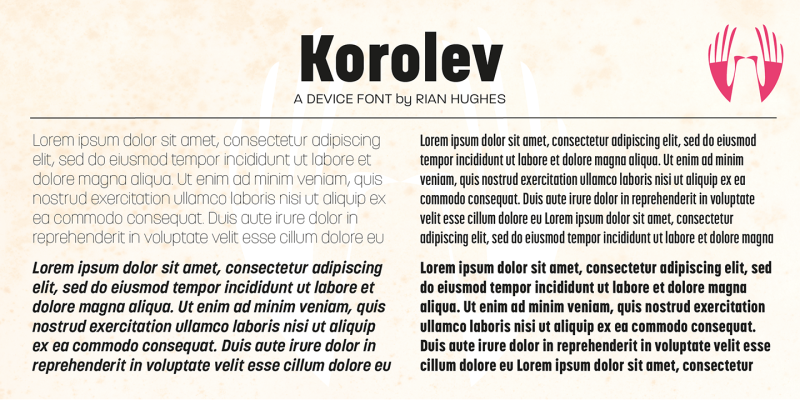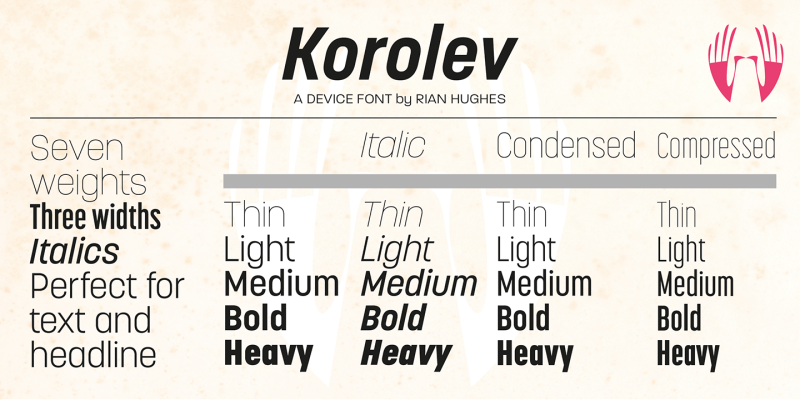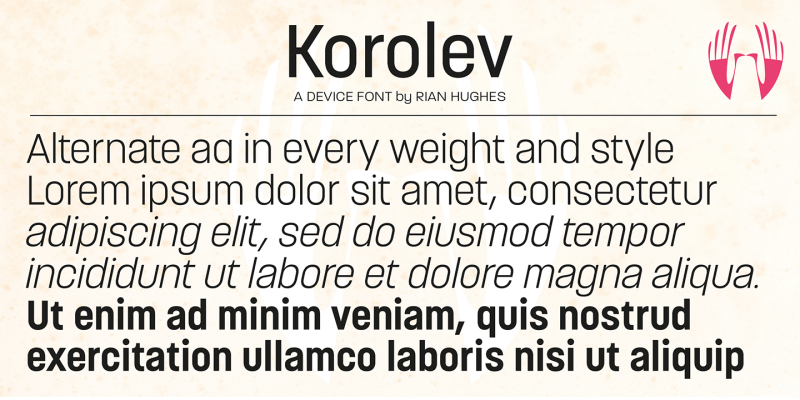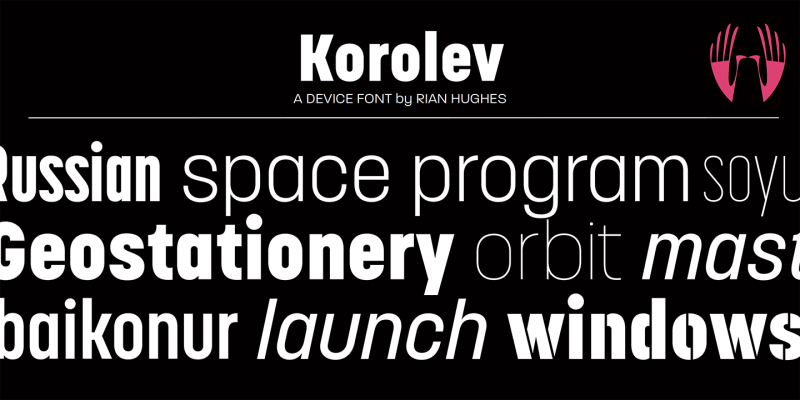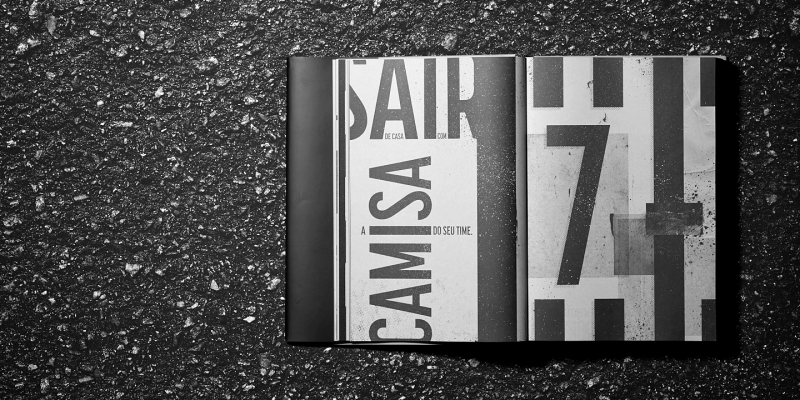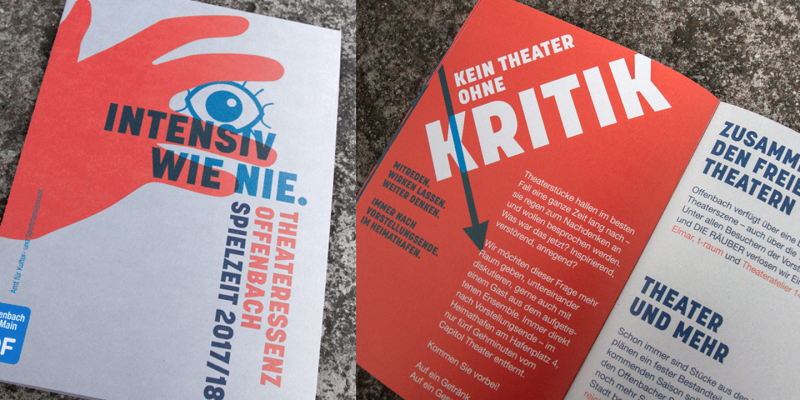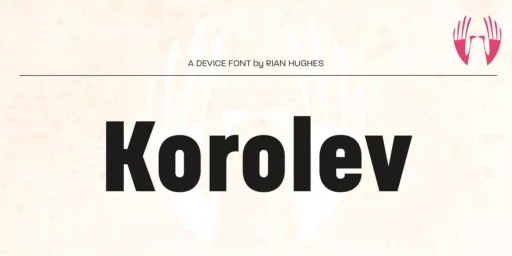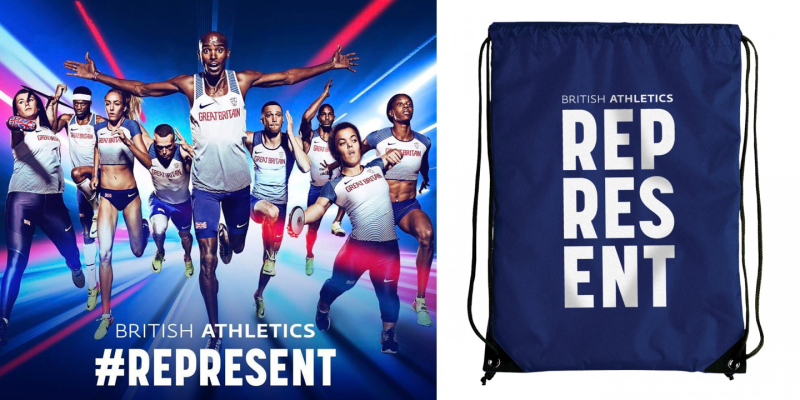
Korolev Font
Korolev, a meticulously designed sans serif font family, references the constructivism era in Russia and the spirit of space exploration in the Soviet Union. Korolev as a typeface is inspired by Sergei Korolev, known as ‘the father of Soviet space industry’, and the interplay of tradition and contemporaneity can be felt within the design of this typeface quite potently.
Developed by Alexandra Korolkova, Korolev’s design concept is based on constructivism, a trend initiated in Russia during the first years of the twentieth century. This influence is reflected in the font’s geometric characteristics—smooth lines, no excessive details, sharp corners, and somewhat reduced width. These elements correspond to constructivism principles such as minimization of the number of lines, practicality, and the absence of adornments.
However, instead of being strictly geometric, like many sans serif fonts, Korolev goes beyond the geometric and has moderated humanistic elements. The open counters and the slightly rounded terminals are not sharp to the eyes; instead, they also cause additional extensions, adding warmth towards the letters. The decision to combine geometrically clean forms with elements of calligraphy creates a unique character of the font and makes Korolev stand out among other sans serif fonts.
One of the major advantages of Korolev and its design is its perfect Cyrillic character set, which corresponds to Latin in all details, focusing on the clarity of the shapes and the unity of the typeface. Overall, this kind of attention to design makes Korolev suitable for projects that involve translation to multiple languages or for those targeted at Russians in particular. Whether employed by a Russian-speaking magazine or when the design aims to embody Russian typography, Korolev provides a worry-free reading experience when it comes to scripts.
Korolev is also very versatile in terms of weights, starting from Hairline and ending with Black, united with their italic counterparts. This means that designers can achieve a vast typographic spectrum varying from delicate and sophisticated to militant. Whether it is for small letters of body text or extraordinary headlines, as well as expressive logos, Korolev is suitable for various kinds of designs.
The applications for Korolev are literally countless, as is its potential for design. Its narrow and precise shapes would be ideal for use in companies or organizations since it has a more formal and clear look to it. At the same time, due to its humanistic tendencies and support of the extensive range of Cyrillic characters, it would be appropriate for cultural and art-related projects dedicated to the preservation of Russia’s spiritual and creative values. It is just as versatile when it comes to digital settings as well, and therefore, it is perfect for use in web designs and user interfaces.
These are the favourite fonts to contrast with matching fonts and thus enhance the impact. Redefining the effect will be a visual contrast that will make Korolev Font stand out and, at the same time, readable. It is possible to add a fancy font or a decorative font for a bolder and more adventurous look. They are the ones who are active in designing logos as well as any other material meant to portray the qualities of being elegant and trendy.
The process of trying out different font pairings is important to finding the best combination that will work for a certain design. Experiment with various options and find the best solution for your design project using this font.
In conclusion, it can be said that Korolev is one of the successfully implemented typographic designs that take into consideration the influence of historical styles along with modern trends. In this way, by referencing the constructivism of Russia and the innovative tendencies of the legendary structure engineer Serhii Korolev, this font brings another perspective to the typography world. Whether the purpose of the font is to underscore Russia’s culture and heritage, serve as a symbol of a new and progressive brand, or enhance the aesthetics of a design-related project, Korolev is a font that clearly instructs ‘Reverence. ’This combination of historical and contemporary aesthetic options makes it a timeless and design-friendly font that simultaneously provides designers with a historical, religious, artistic and functional value.
Korolev Font is a typeface project that is somehow associated with the Soviet space program. The typeface Korolev derives its name from Sergei Korolev, the head of the Soviet space program.
Rian Hughes, a British designer and comic book artist, designed this font.
The Korolev Font is a geometric type design with rounded endings, making it legible and suitable for both print and digital media.
The Korolev typeface draws inspiration from the Soviet space program, leading to its namesake, Sergei Korolev – the chief designer of the program.
Where Korolev Font works best
Korolev Font stays legible at small sizes, which makes it a strong choice for navigation, buttons and dashboards in web design and app interfaces.